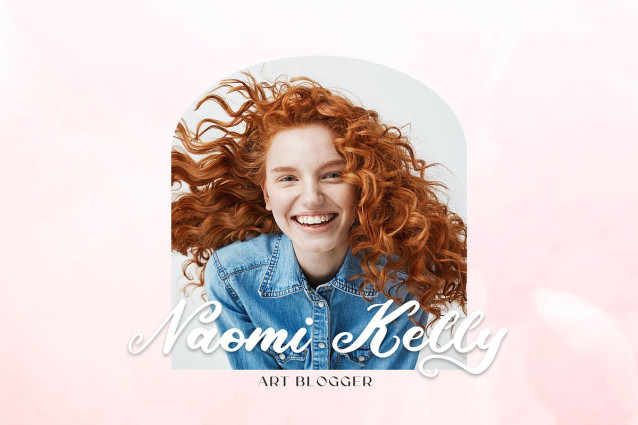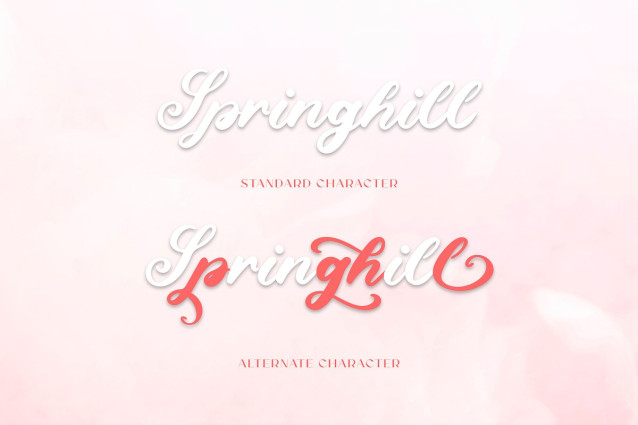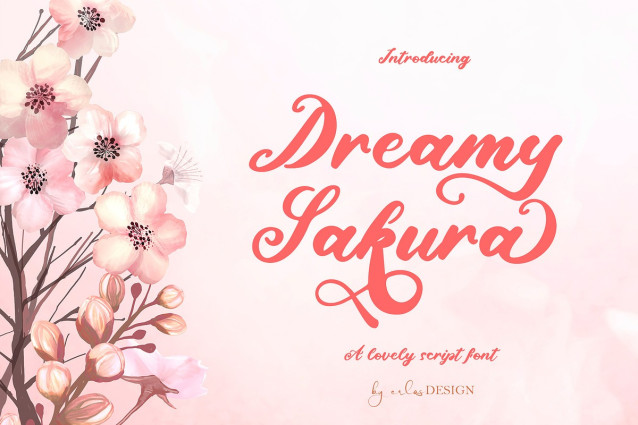
Dreamy Sakura Font
Dreamy Sakura Font is a lovely script font. Whether you are using it for designs, quotes, titles, brand names, book covers, posters, or just any creation that requires a touch of beauty, this font is a great choice.